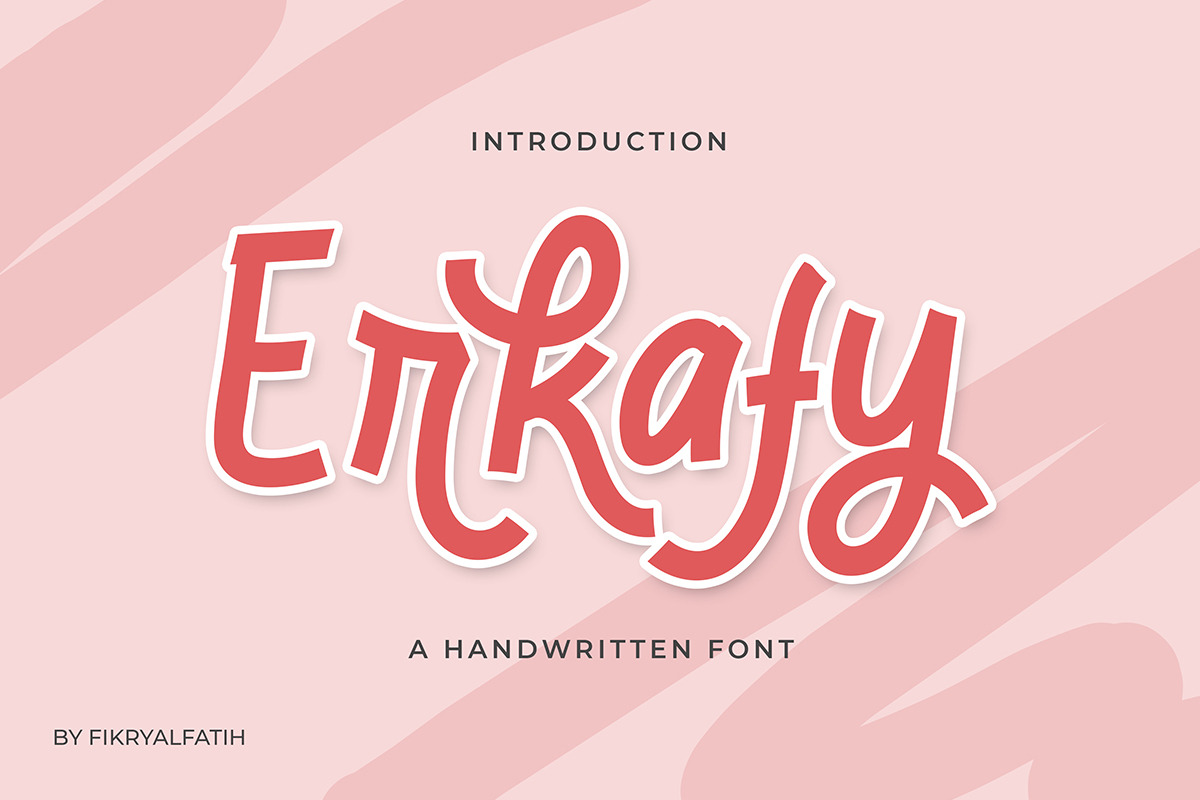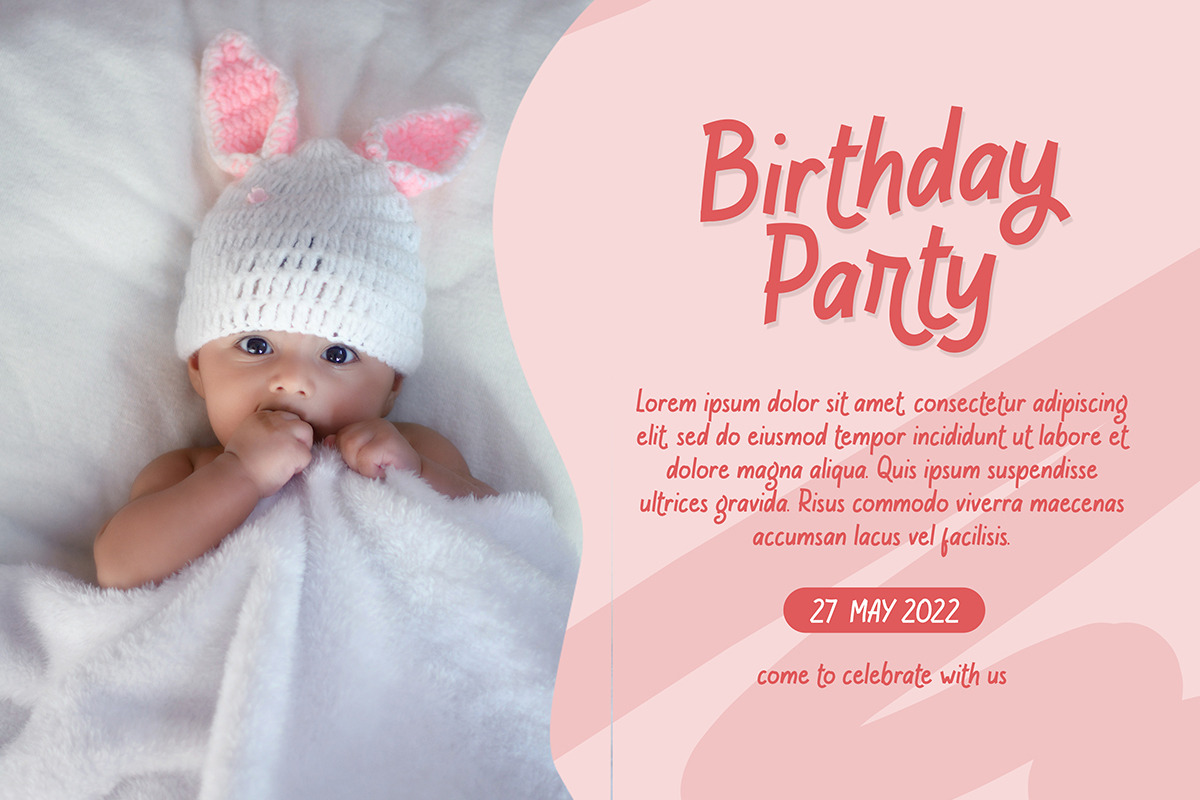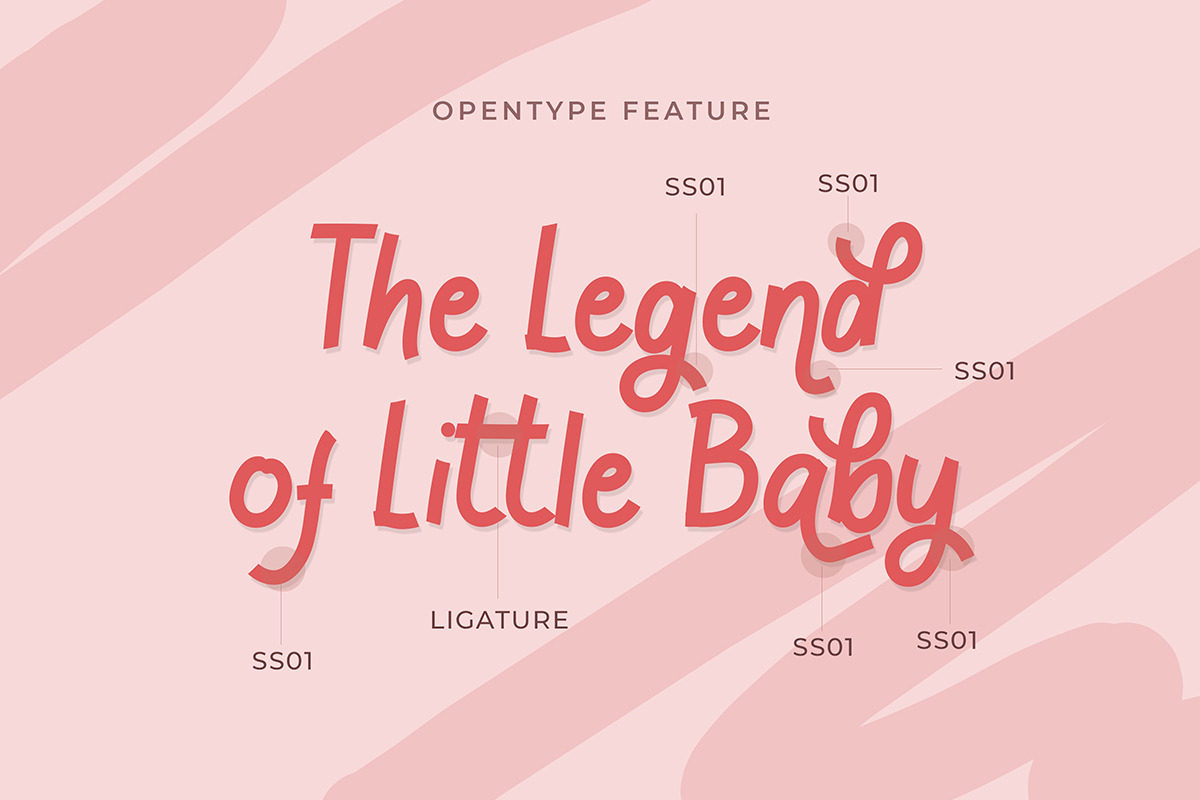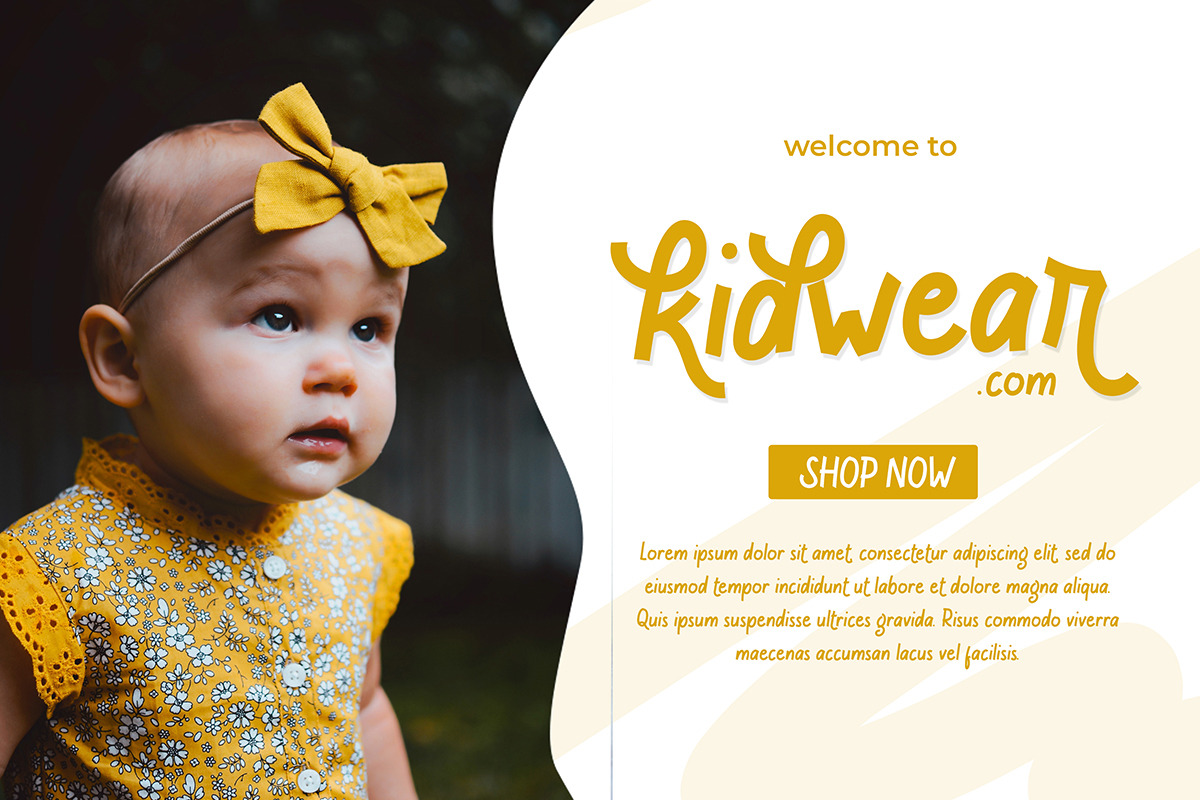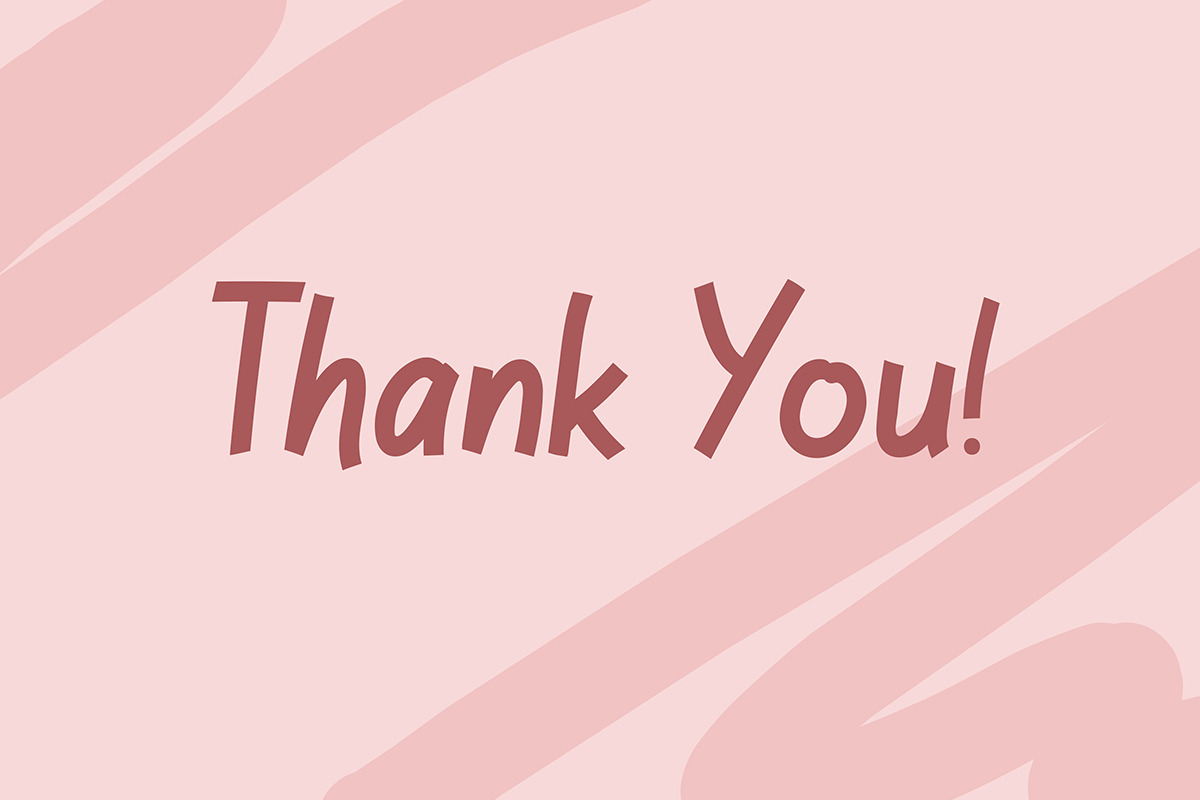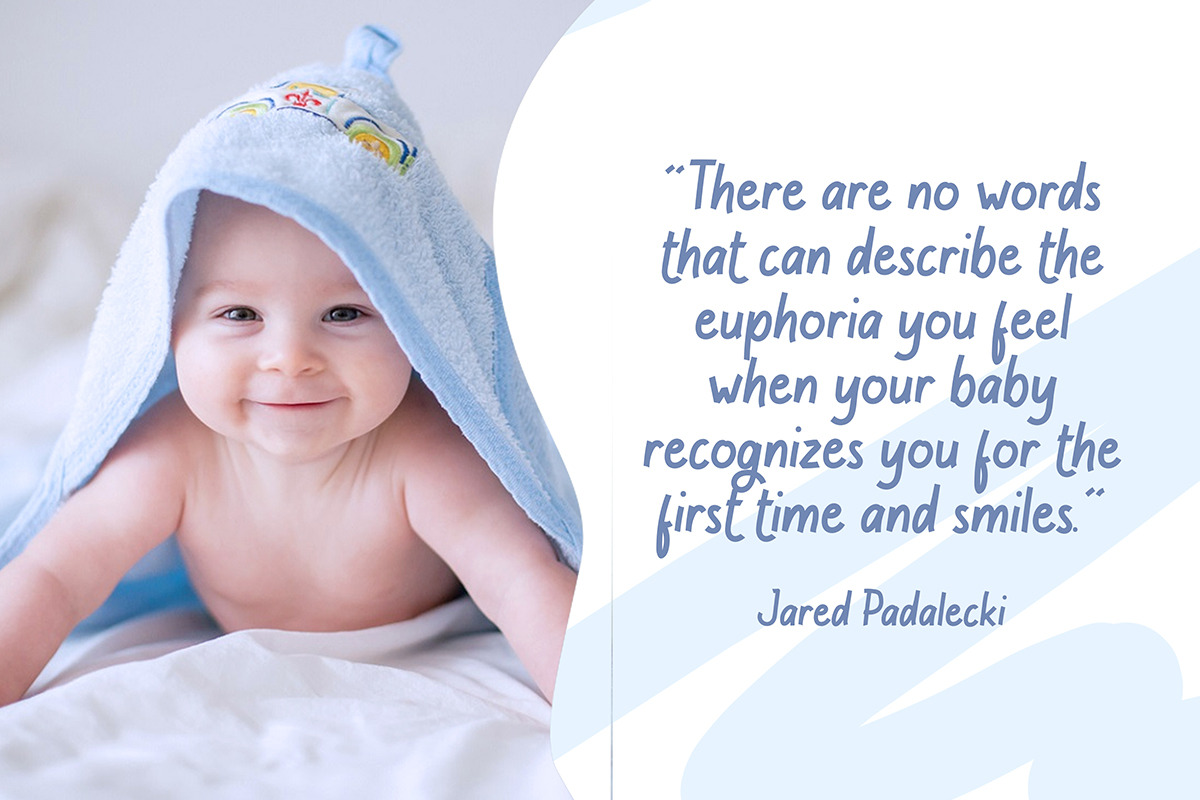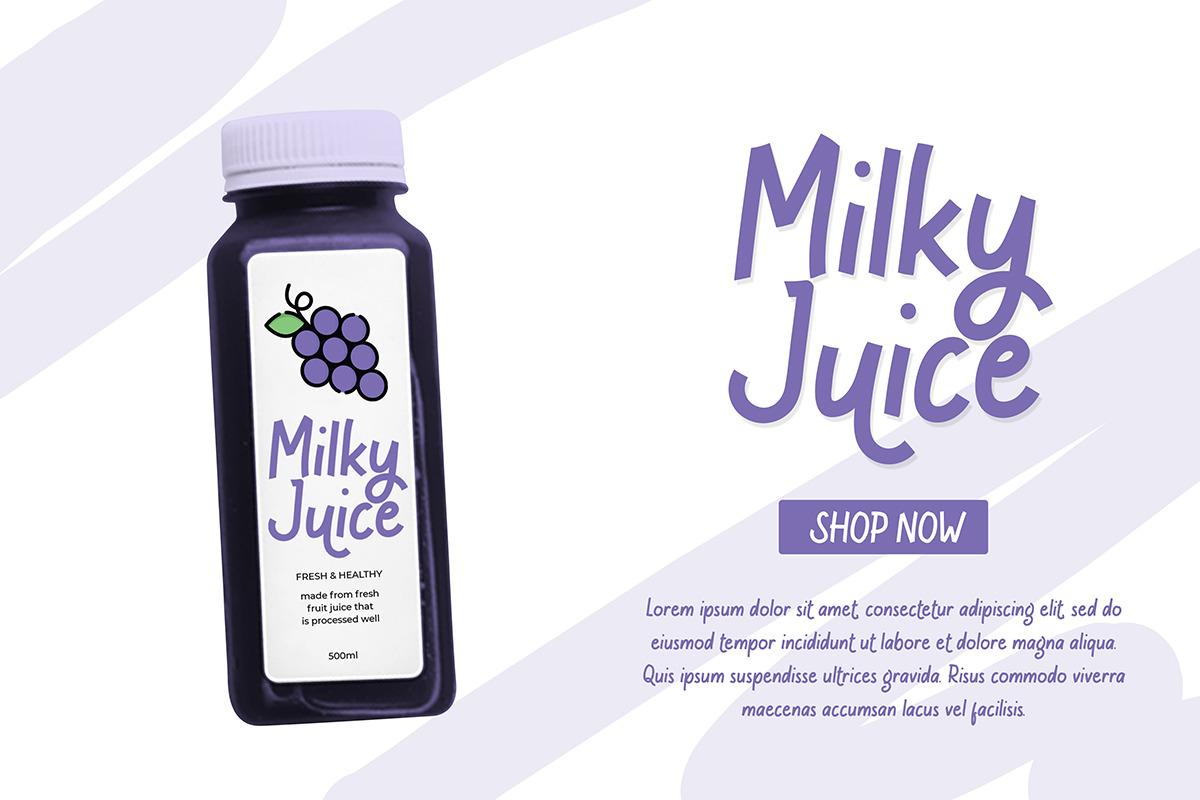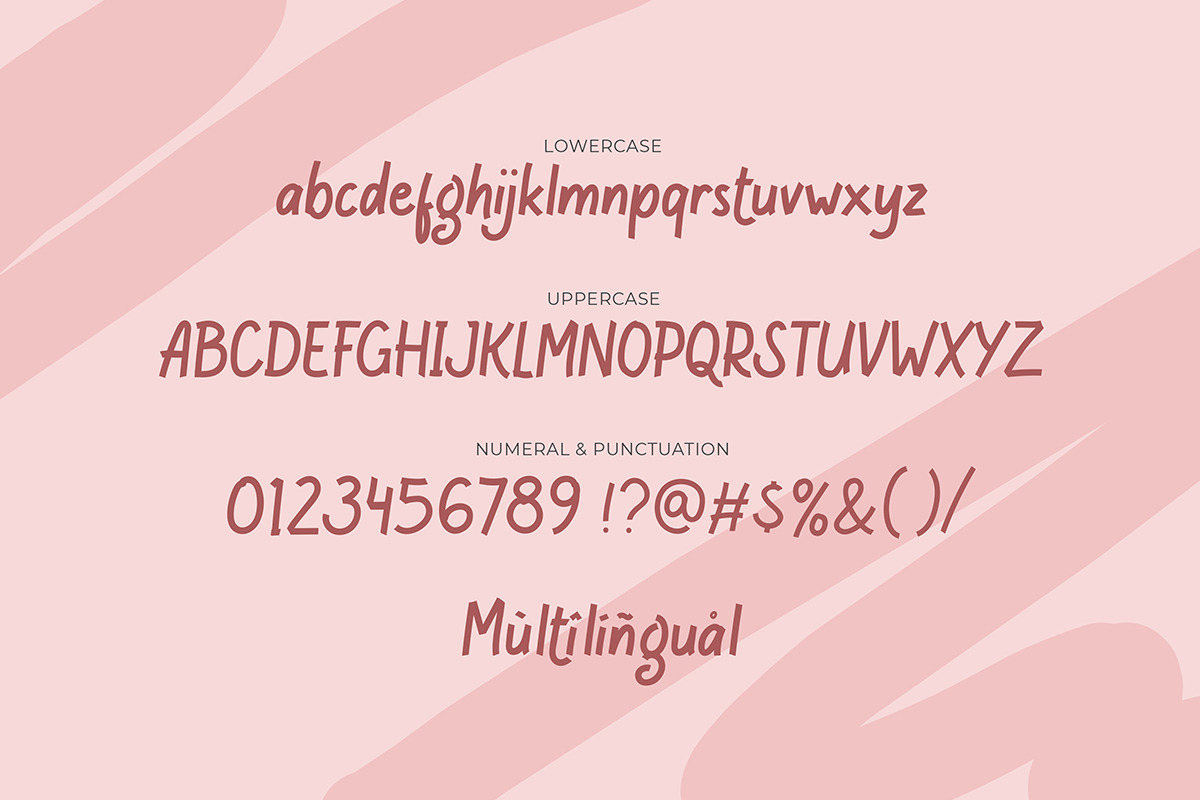
Erkafy - Handwritten Font
Erkafy is a handwritten typeface specially made with love, resulting in a font that looks so cute and adorable. This font is perfect for all your products that need a cheerful feel. Erkafy is perfect for branding projects, logos, wedding designs, social media posts, advertisements, product packaging, product designs, label, photography, watermark, invitation, stationery and any projects that need handwriting taste.
- alternate
- swash